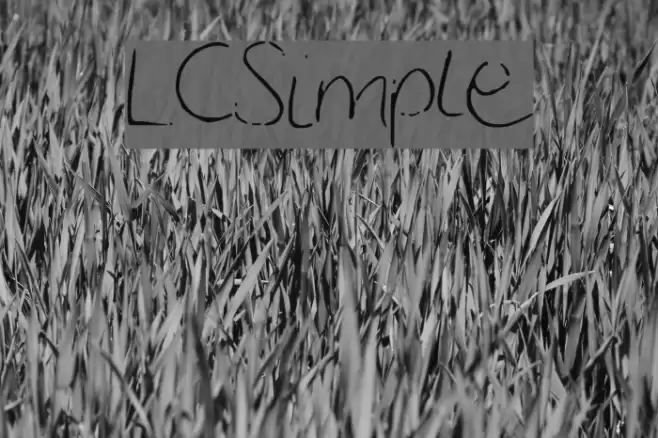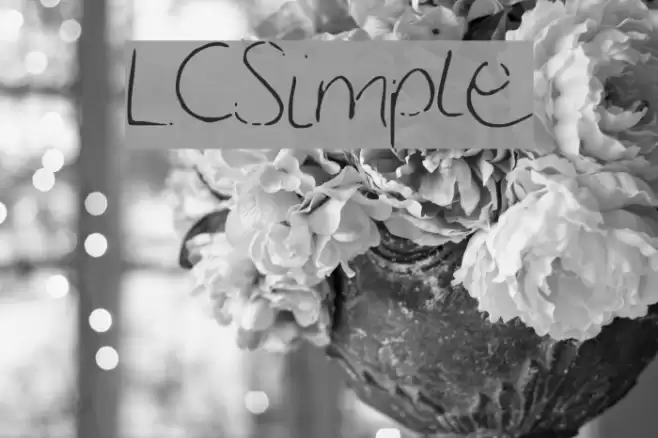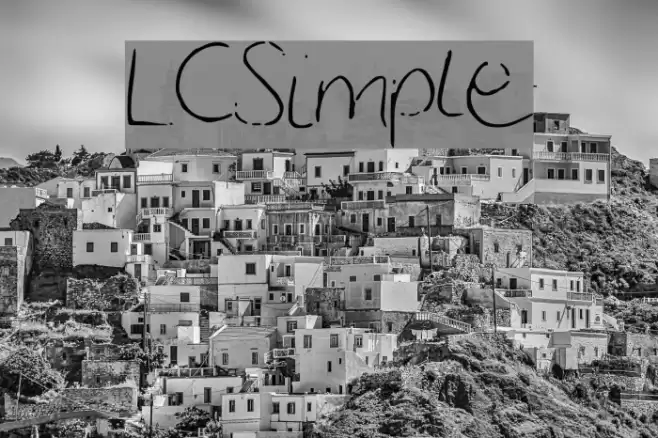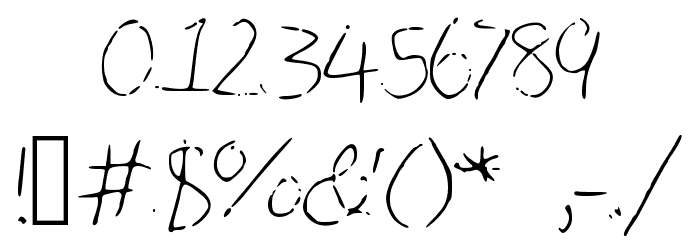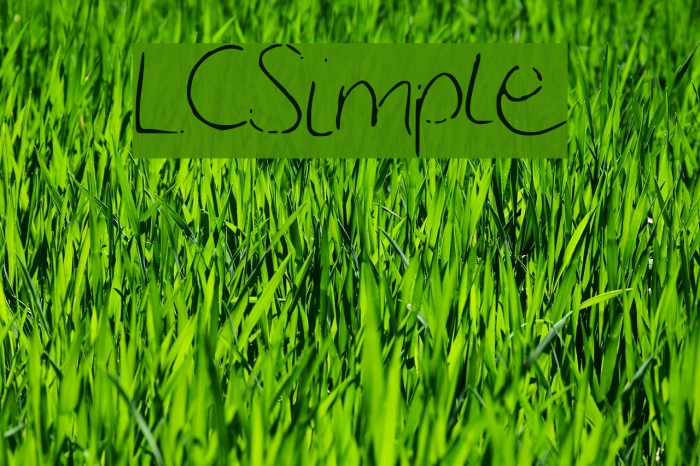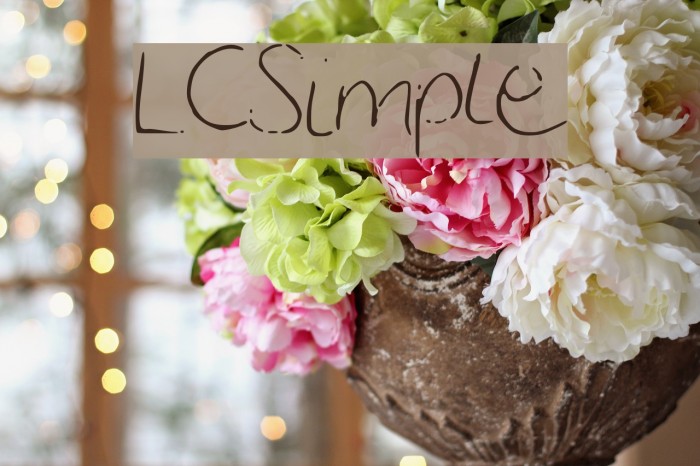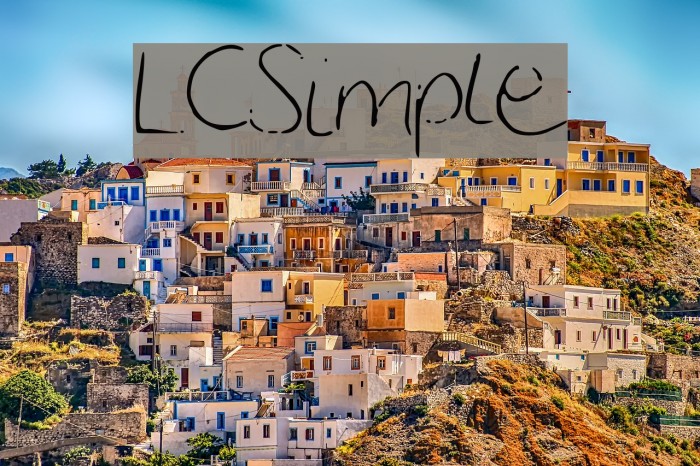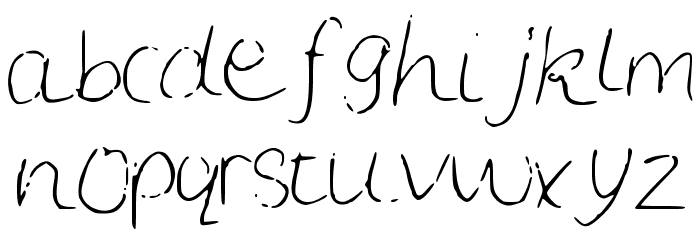
LCSimple
This font features a handwritten style with a casual and organic appearance. The characters are slightly irregular, giving it a personal and informal touch. The strokes are thin and vary in thickness, adding a dynamic and lively feel. The uppercase letters are tall and narrow, while the lowercase letters maintain a consistent flow, enhancing readability. The numerals and special characters follow the same handwritten aesthetic, making the font versatile for creative projects. Its unique style is perfect for adding a personal touch to designs.
A casual, handwritten font with thin, dynamic strokes and an organic feel.
- Proposed Projects: Ideal for personal notes, invitations, greeting cards, and creative branding projects.
- Overall Style: Casual
- Use Case: Invitations, Greeting cards, Creative branding